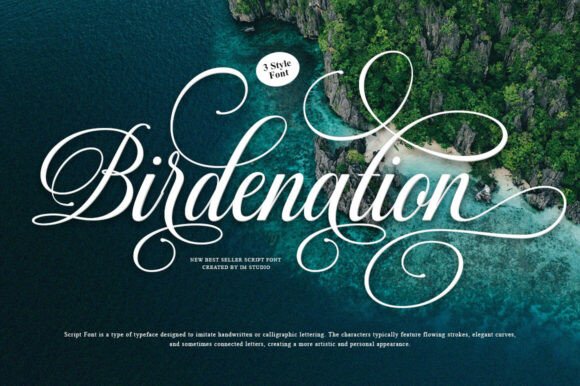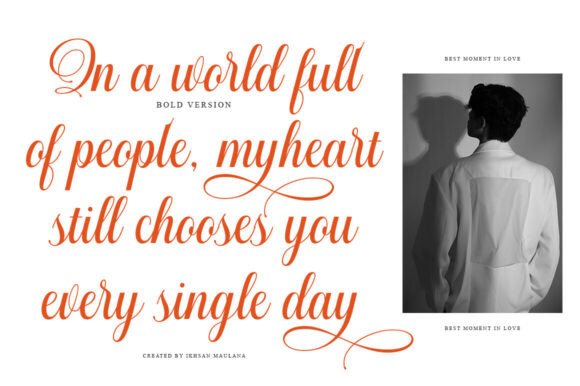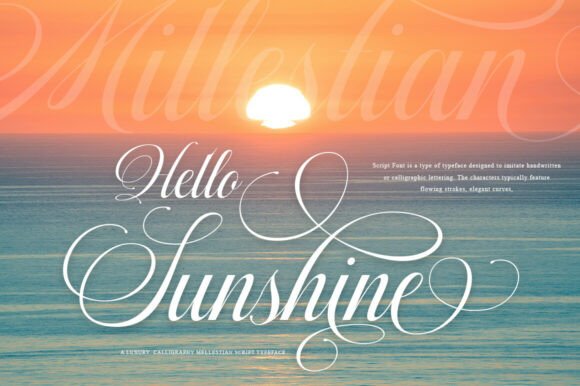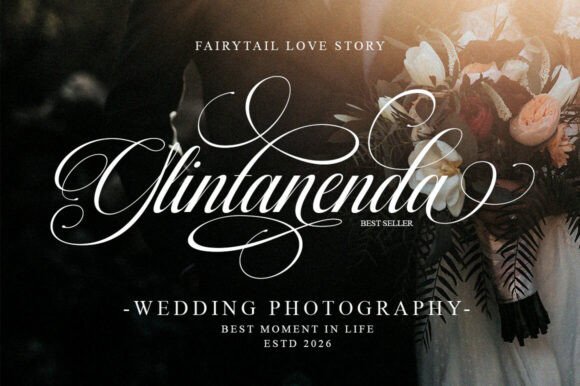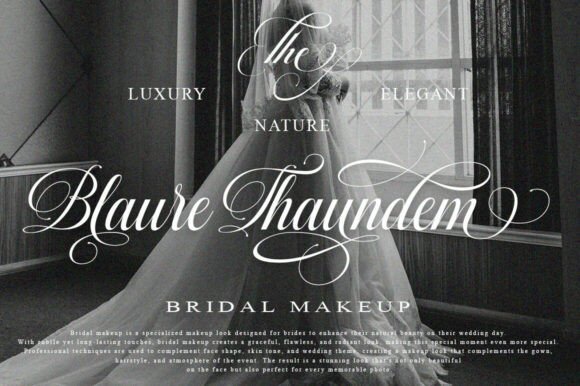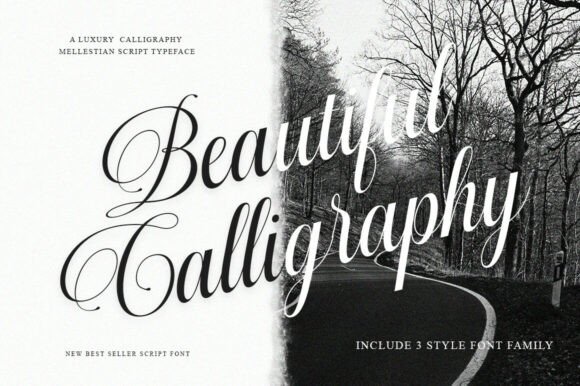
Introduction to Mallestian Script Font
As a designer, have you ever been working on a project and suddenly you need that perfect script font to elevate the look of your design? I’m sure you have! For me, it’s like searching for the perfect paint color for a room – it can make all the difference. Recently, I stumbled upon the Mallestian Script Font, and I just couldn’t get enough of its elegant and luxurious style. With its beautiful character variations and modern touch, this font is a game-changer for any creative project.
What sets Mallestian Script Font apart from other design resources is its versatility and high quality. Whether you’re working on a wedding invitation, a fashion magazine, or a novel, this font is sure to add a touch of sophistication and class. And the best part? It’s available for free download, making it an accessible and valuable resource for designers of all levels.
Key Features of Mallestian Script Font
- Unique characteristics include elegant, cursive script and stylish flourishes, making it perfect for invitations, wedding designs, and other creative projects.
Honest Review: Mallestian Script Font
I recently had the chance to work with the Mallestian Script Font, and I must say it’s been a great addition to my design resource library. The free download was seamless, and I was impressed by the level of detail in the font’s design.
- ✨ High-quality design: The Mallestian Script Font has a beautiful, elegant feel to it. It’s perfect for creative projects that require a touch of sophistication.
- ✨ Versatile: Whether you’re working on a wedding invitation, a book cover, or a marketing brochure, the Mallestian Script Font is sure to impress.
However, I did encounter a few limitations. ⚠️ The font may not be suitable for very small text sizes, as the intricate details can get lost. Additionally, the font’s weight may not be ideal for headings or titles that require extra emphasis.
Overall, I’m quite impressed with the Mallestian Script Font. Its unique design and versatility make it a valuable addition to any designer’s library. While it may have some limitations, I believe the benefits far outweigh the drawbacks.
Mallestian Script Font is a beautiful, high-quality design resource perfect for creative projects. With its elegant and sophisticated style, it’s ideal for wedding invitations, branding materials, and other design projects where a touch of elegance is needed.